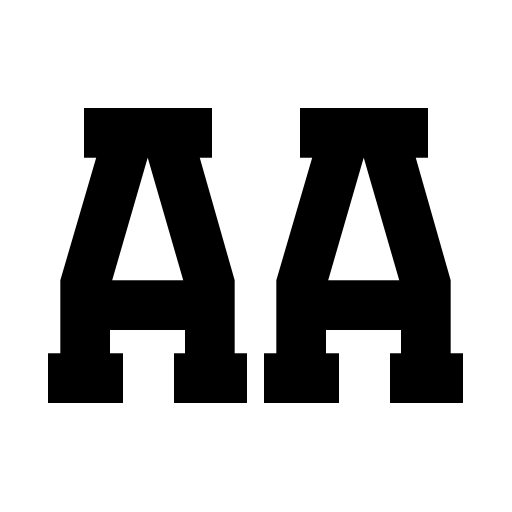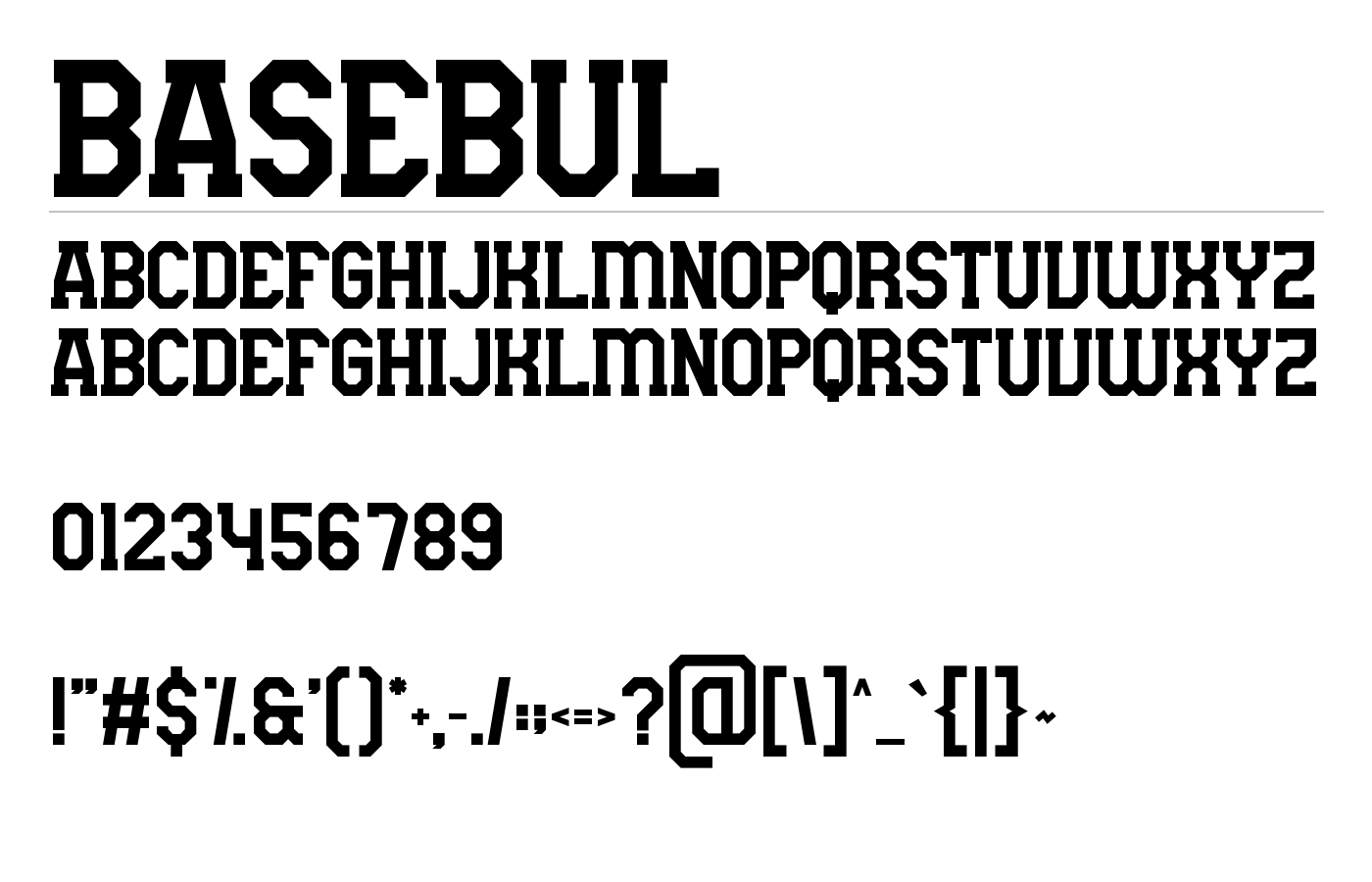
BASEBUL is a bold, condensed slab serif font with a strong, geometric feel, characterized by its thick, blocky letterforms and minimal stroke contrast. Its uppercase-only style, distinct angular corners, and sturdy structure make it perfect for sports branding, vintage posters, and headlines that demand attention and convey a tough, energetic vibe. This font works well where impact and readability at large sizes are key, lending an athletic and rugged personality to any design.
BASEBUL Font
About BASEBUL Font
| Designer | Maikohatta |